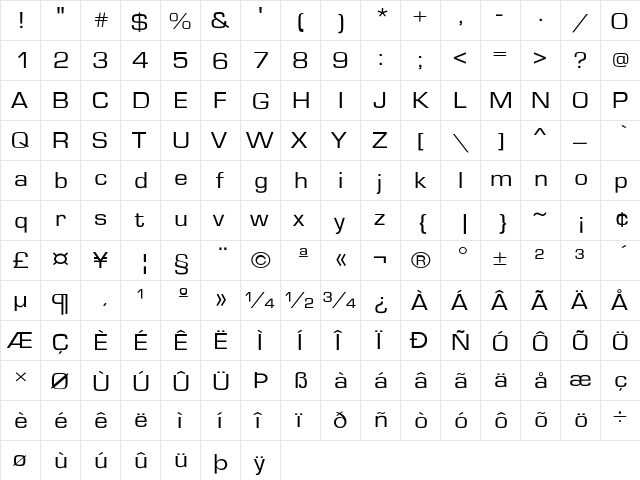
EurostileExt-Normal Regular
Design Context for EurostileExt-Normal Typeface
EurostileExt-Normal is a composed and adaptable typeface that performs quietly and consistently across a wide range of design contexts.